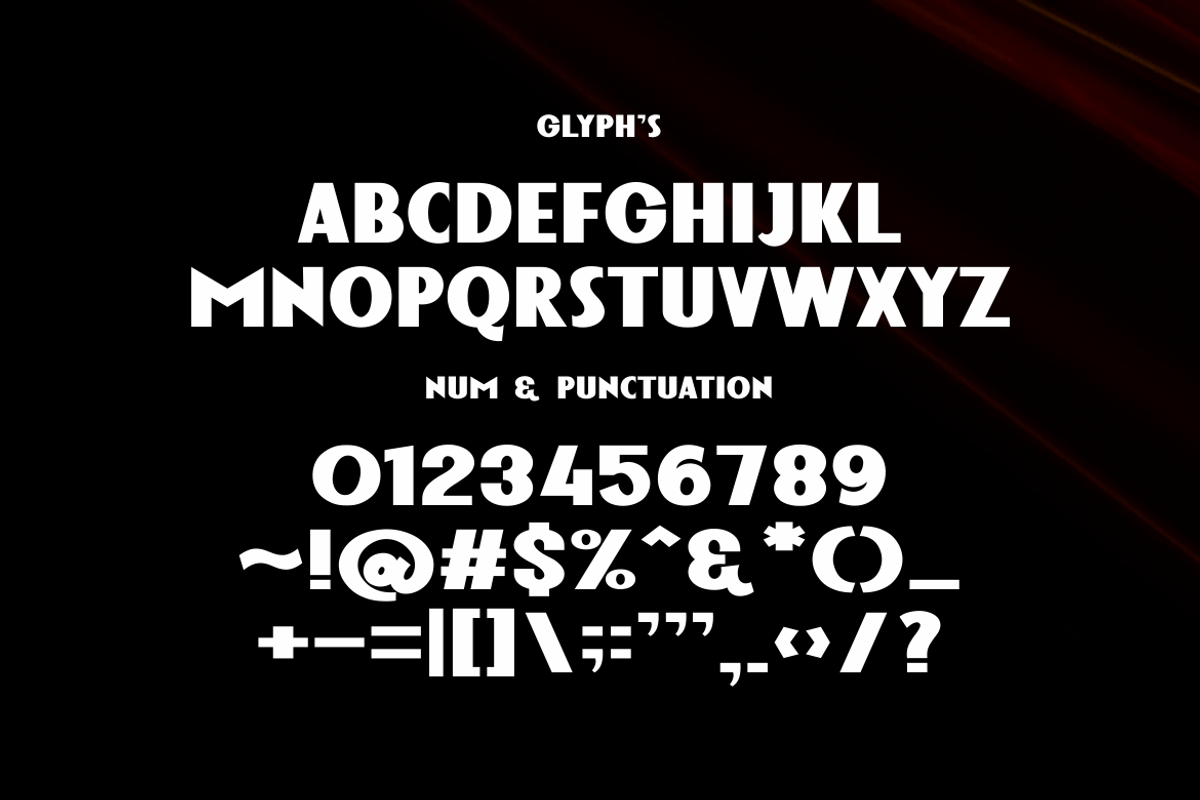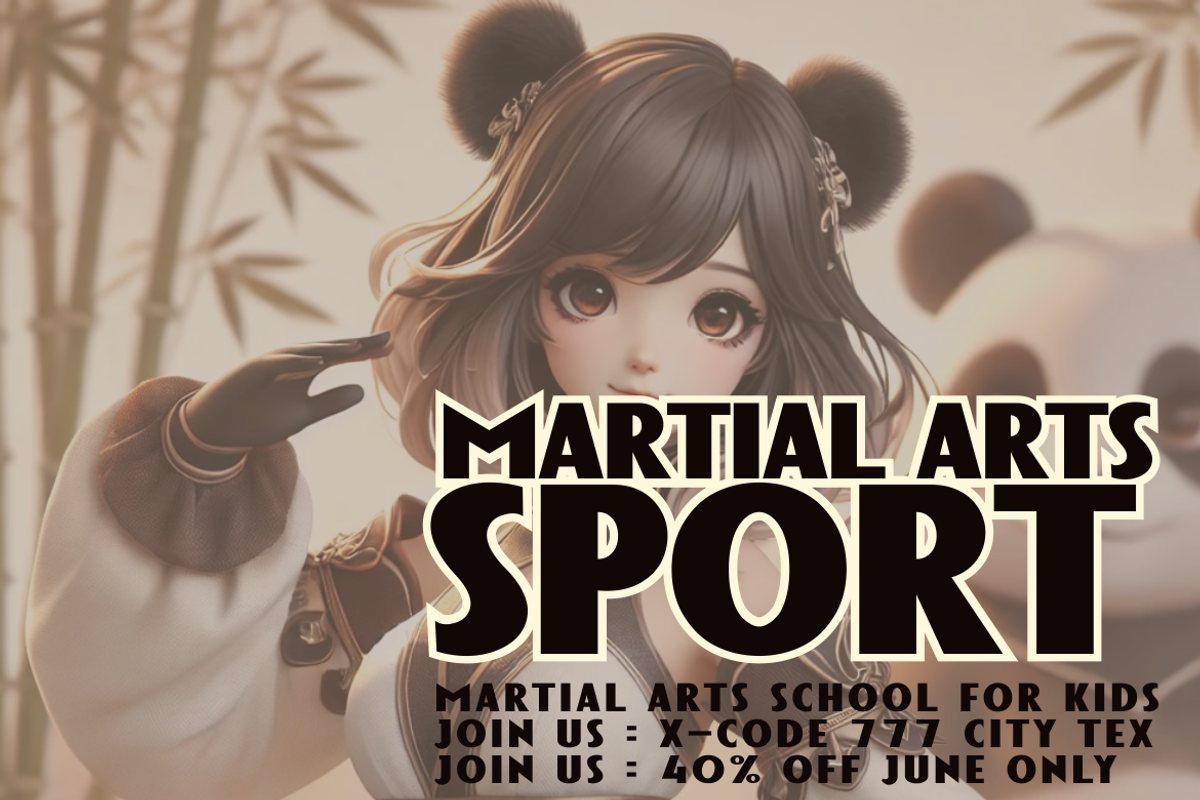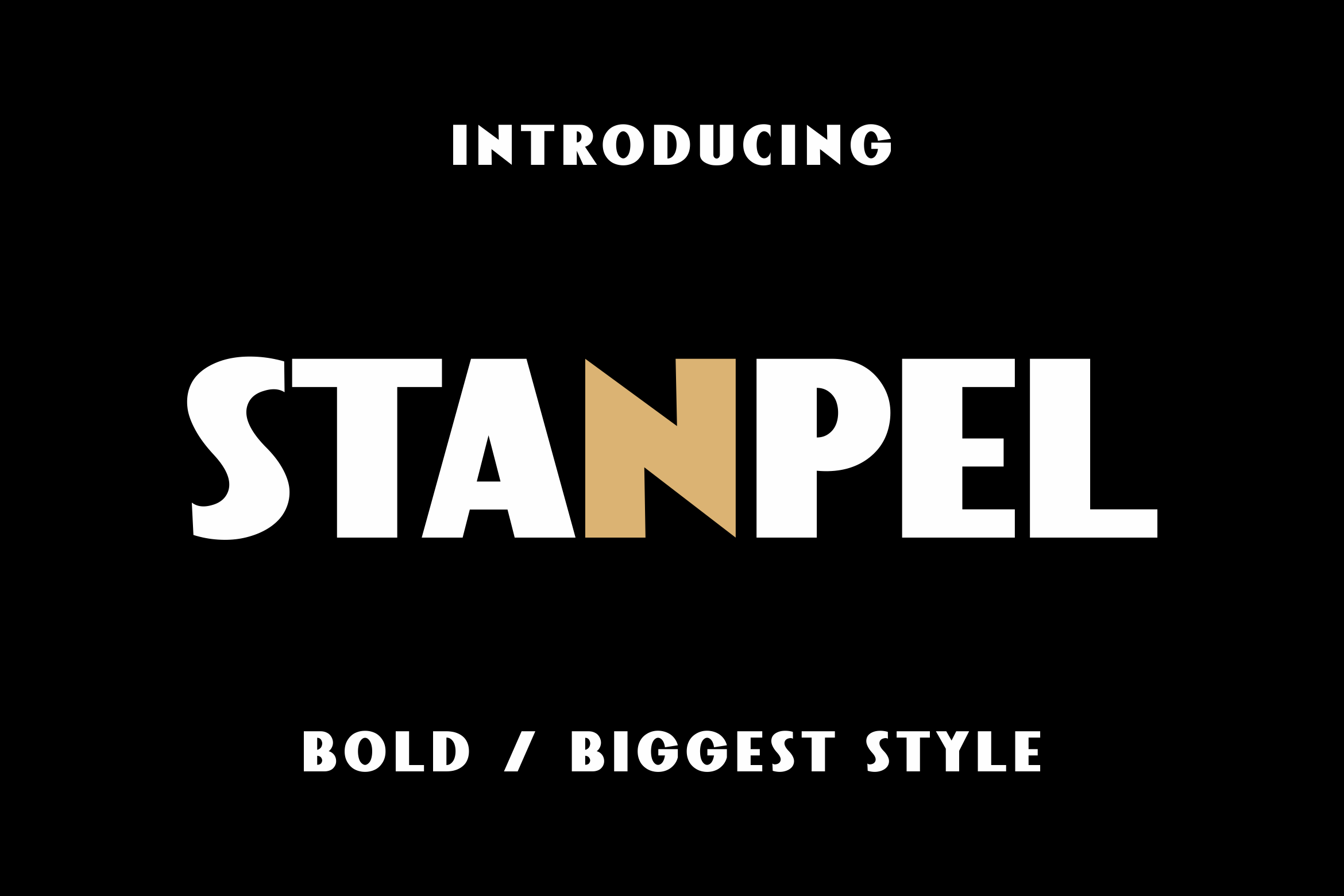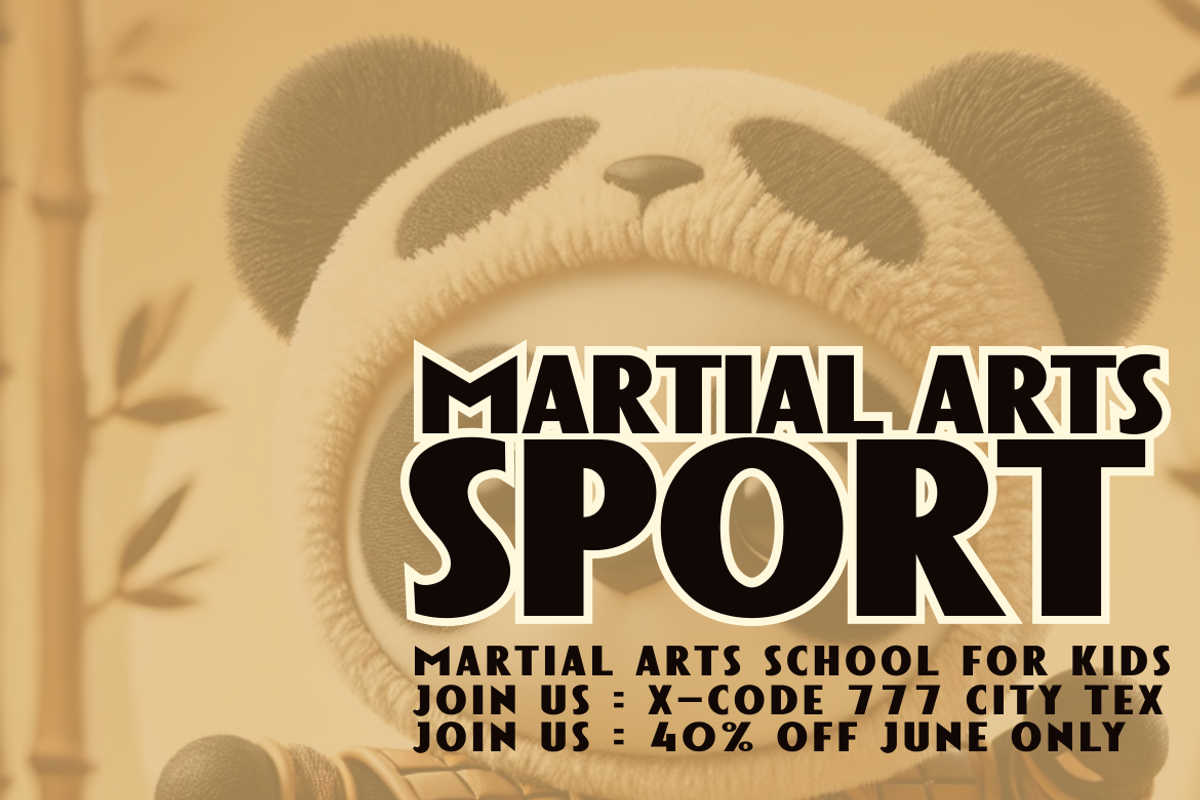
Stanpel - Poster Public Font
Font Description for Stanpel
Stanpel is a bold and eye-catching display font designed to make your text stand out. With its strong and modern aesthetic, this font is perfect for posters, billboards, advertisements, website headers, and online games. Whether you need a font for branding, digital marketing, or gaming projects, Stanpel delivers a powerful and professional touch.
Features: ✅ Bold and modern display font ✅ Ideal for advertising and digital media ✅ Perfect for titles, headlines, and banners ✅ Available in OTF & TTF formats ✅ Great for gaming and web design